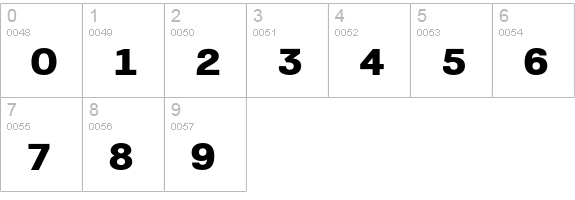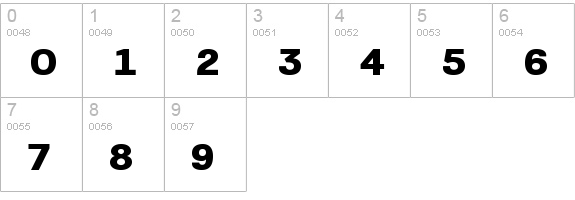
PFEncoreSansPro-Black is a maximum-weight, dramatic variant in the PFEncoreSansPro typeface family \xE2\x80\x94 well suited to maximum-impact headlines, posters, and packaging.
PFEncoreSansPro-Black is a striking and bold font that exudes a sense of power and sophistication. Its thick, heavy strokes command attention and make a bold statement in any design project. This font is perfect for creating impactful headlines, logos, and branding materials that need to stand out. The modern and versatile design of PFEncoreSansPro-Black makes it suitable for a wide range of applications, from advertising and marketing to editorial and packaging design. Its sleek and contemporary look adds a touch of elegance to any project while ensuring maximum readability and visual impact. Best of all, PFEncoreSansPro-Black is available for free download at FontsMarket.com, making it accessible to all designers and creatives looking to add a touch of boldness to their work. Don't miss out on this opportunity to elevate your designs with the stunning PFEncoreSansPro-Black font today!